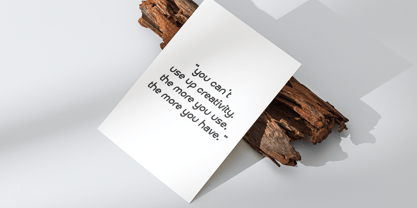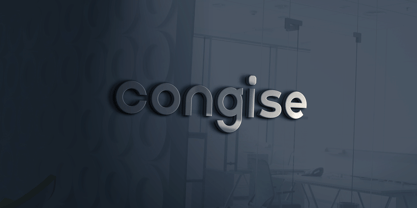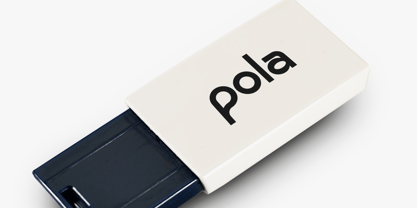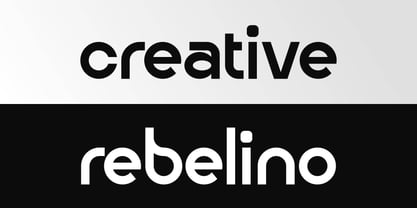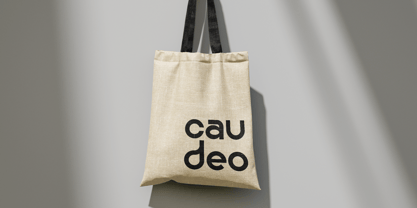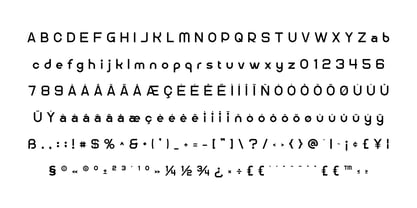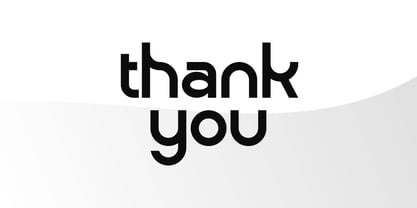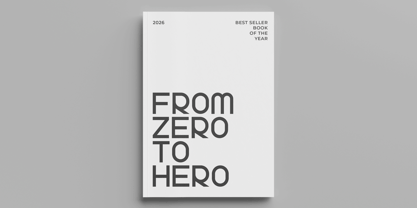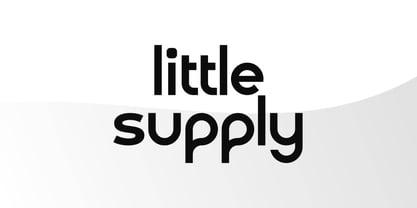
Little Supply
por Artiveko
La familia tipográfica Little Supply fue diseñada por Iwan Alwan y publicada por Artiveko. Little Supply contiene 2 estilos y opciones de paquete familiar. Más información sobre esta familia
Little Supply is a modern display logo sans font designed specifically for creative branding and stylish visual identity. With its clean letterforms, balanced proportions, and contemporary aesthetic, Little Supply offers a fresh and memorable typographic style that is perfect for standout logo design. This font is ideal for various applications, including branding, packaging, social media graphics, posters, merchandise, and lifestyle visuals. It combines modern simplicity with a creative personality, ensuring strong visibility in headlines and logo compositions while maintaining a clean and professional appearance. Whether you’re designing for boutique brands, fashion labels, creative studios, cafés, or modern startups, Little Supply provides a versatile and eye-catching typographic solution. More than just a font, Little Supply is a stylish branding asset crafted for the modern creative identity.
Artiveko is a font design team based in Indonesia, comprised of several talented font designers who commenced their careers in the font design industry in 2020. With a dedicated focus on crafting fonts, the team members bring their collective expertise and passion to every project they undertake. Situated in Indonesia, Artiveko draws inspiration from the vibrant cultural landscape of the region, infusing their creations with unique flavors and aesthetics.The team's font collection encompasses a diverse range of styles, including serif, sans serif, handwritten, and script typefaces. Each typeface is meticulously crafted to meet the demands of modern design while offering versatility and functionality across various applications. Whether it's the classic elegance of serif fonts, the contemporary appeal of sans serif designs, the personal touch of handwritten scripts, or the expressive flourishes of script fonts, Artiveko ensures that every font reflects their dedication to quality and innovation.Artiveko's fonts have garnered recognition and acclaim, with their works being featured on prominent social media platforms like Creative Market. Through these platforms, the team has been able to connect with a global audience of designers and typographers, further amplifying their reach and influence in the industry. Their fonts are celebrated for their impeccable craftsmanship, attention to detail, and ability to elevate design projects with style and sophistication.As Artiveko continues to evolve and expand its font collection, the team remains committed to pushing the boundaries of typography and setting new standards of excellence. With a relentless focus on creativity, innovation, and collaboration, Artiveko strives to inspire and empower designers around the world with their distinctive and versatile font designs.